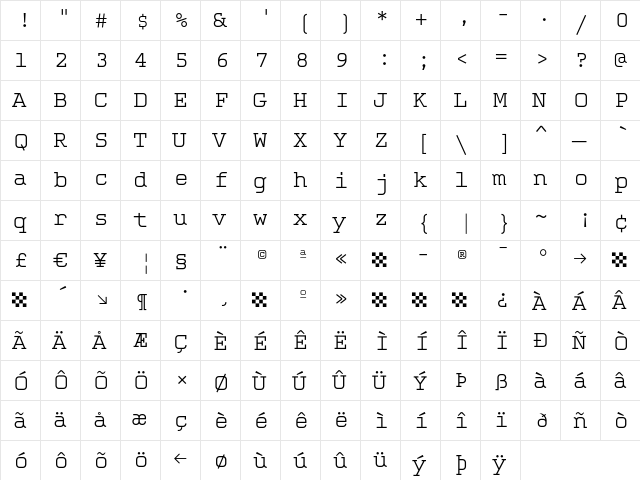
Kettler Regular
Design Context for Kettler Typeface
Kettler is a composed and adaptable typeface that performs quietly and consistently across a wide range of design contexts.
Pro Tip: Use Kettler in both headline and body roles to test its range before committing to a single application.